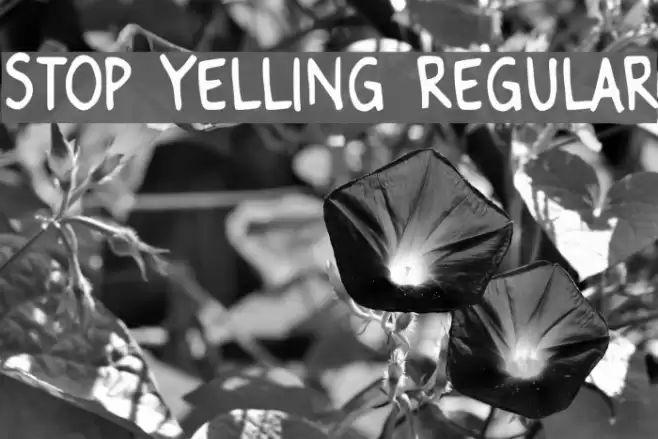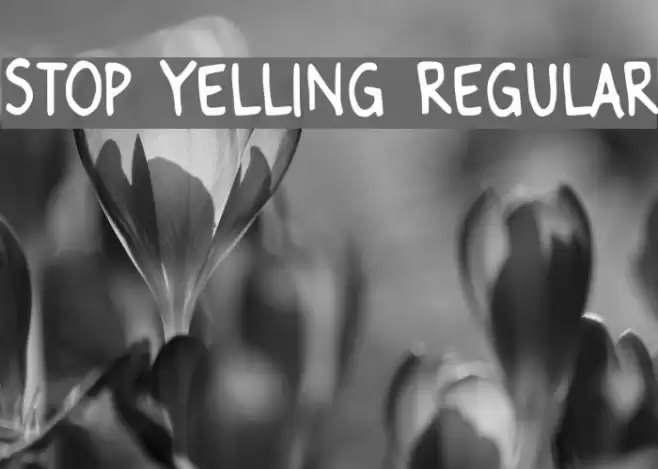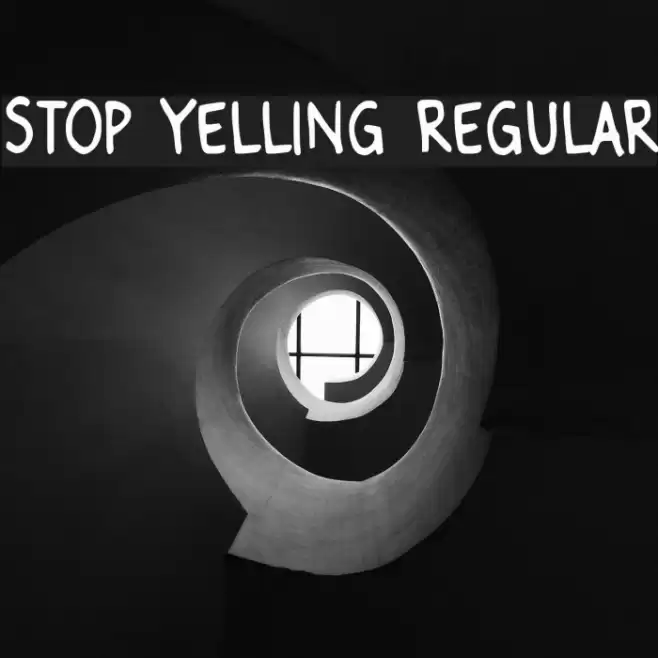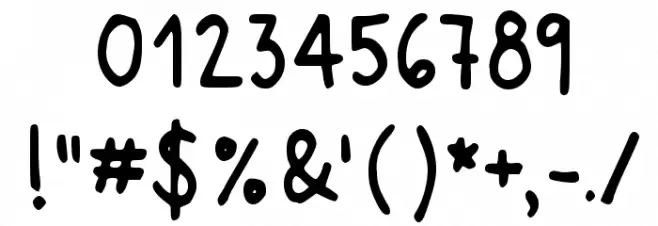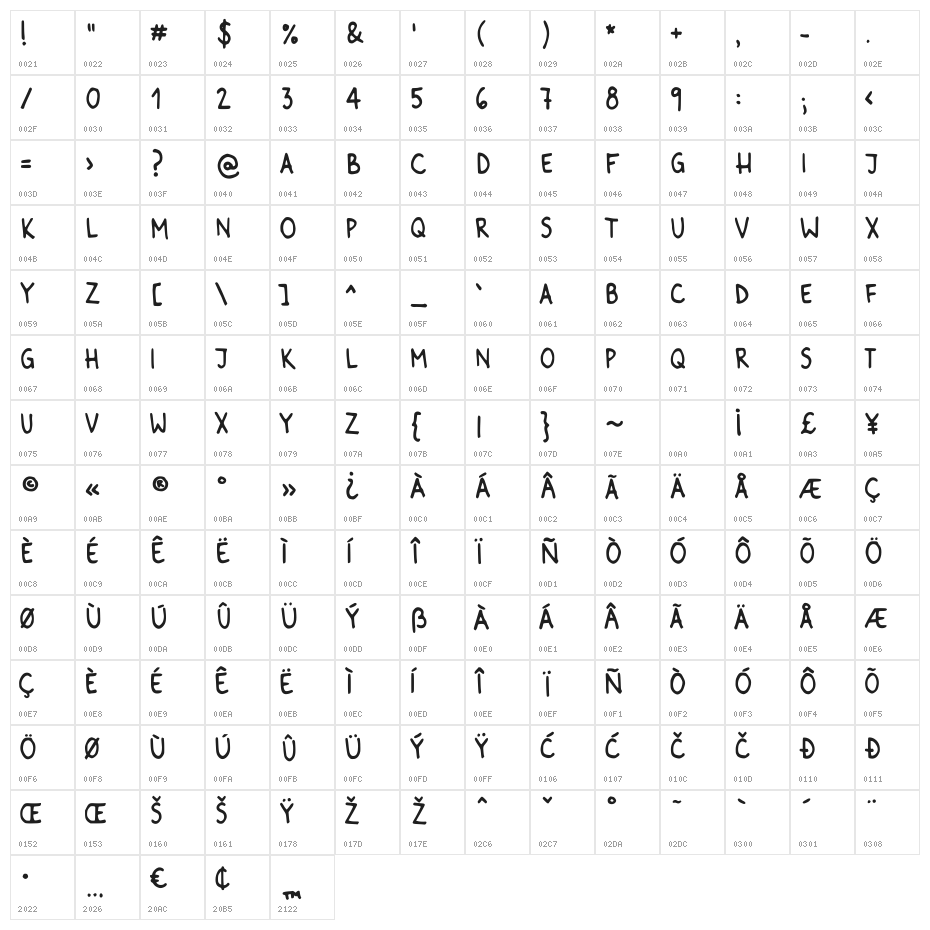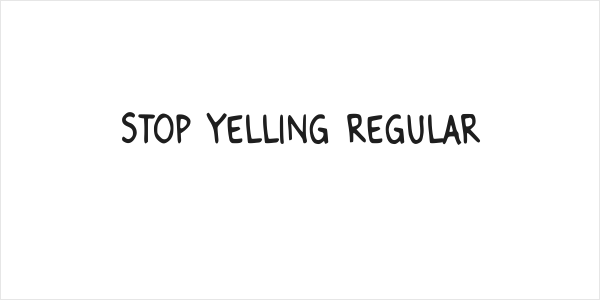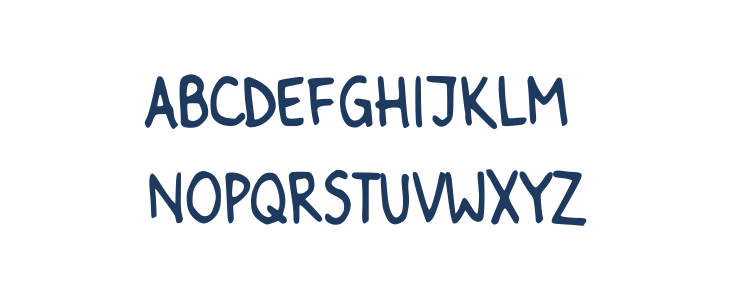
Stop Yelling Regular Font
Stop Yelling Regular Description
This playful and energetic font features a handwritten style with bold, rounded characters. The letters are slightly irregular, giving it a casual and informal appearance. The strokes are consistent in thickness, providing a uniform look across all characters. The font includes both uppercase and lowercase letters, numbers, and a variety of special characters. Its friendly and approachable design makes it suitable for projects that require a personal touch or a fun, lively atmosphere.
A bold, handwritten font with rounded, playful characters from Uncategorized fonts.
- Proposed Projects: Ideal for children's books, casual invitations, greeting cards, and playful branding projects.
- Overall Style: Playful
- Use Case: Headlines, Logos, Informal text